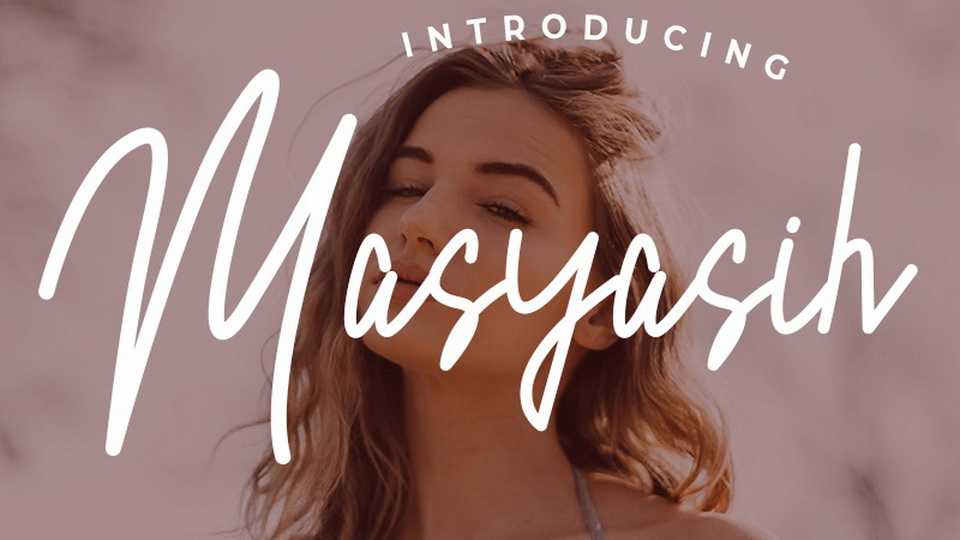
Masyasih Script Font › Fontesk – Download Grátis
Download Masyasih Script, a casual handwritten font created using pencil strokes on paper. Masyasih font is suitable to use for signatures, some posters, and feminine media.